A suitably grandiose letterhead used in the 1910s by Barnum & Bailey, a circus of unmatched spectacle founded in 1881 by master showman P. T. Barnum and promoter James A. Bailey. After Bailey’s death in 1906, the Ringling Brothers purchased the show, then waited until 1919 to merge it with their own to form the legendary Ringling Bros. and Barnum & Bailey Circus—a name that would dominate the world of entertainment for decades.
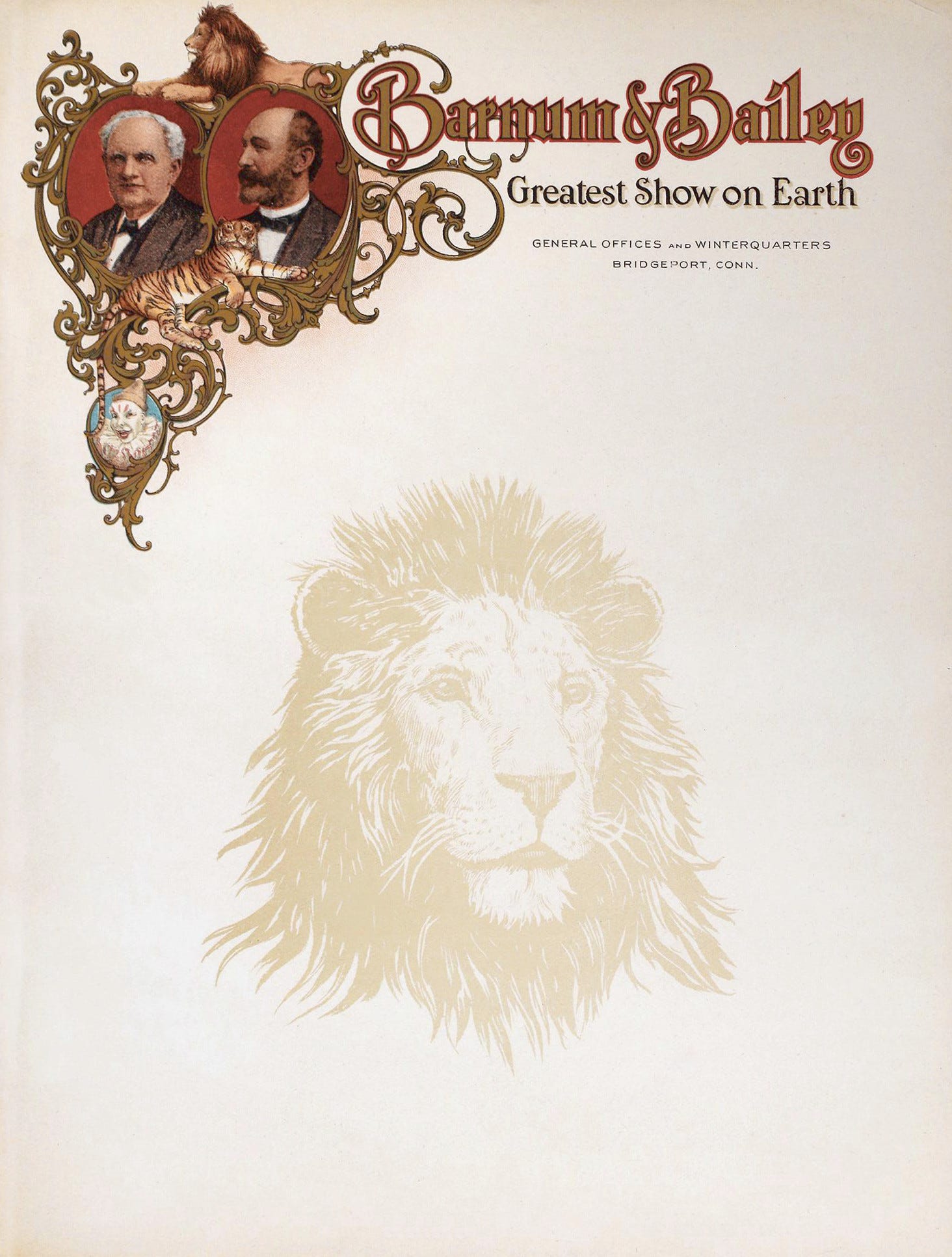
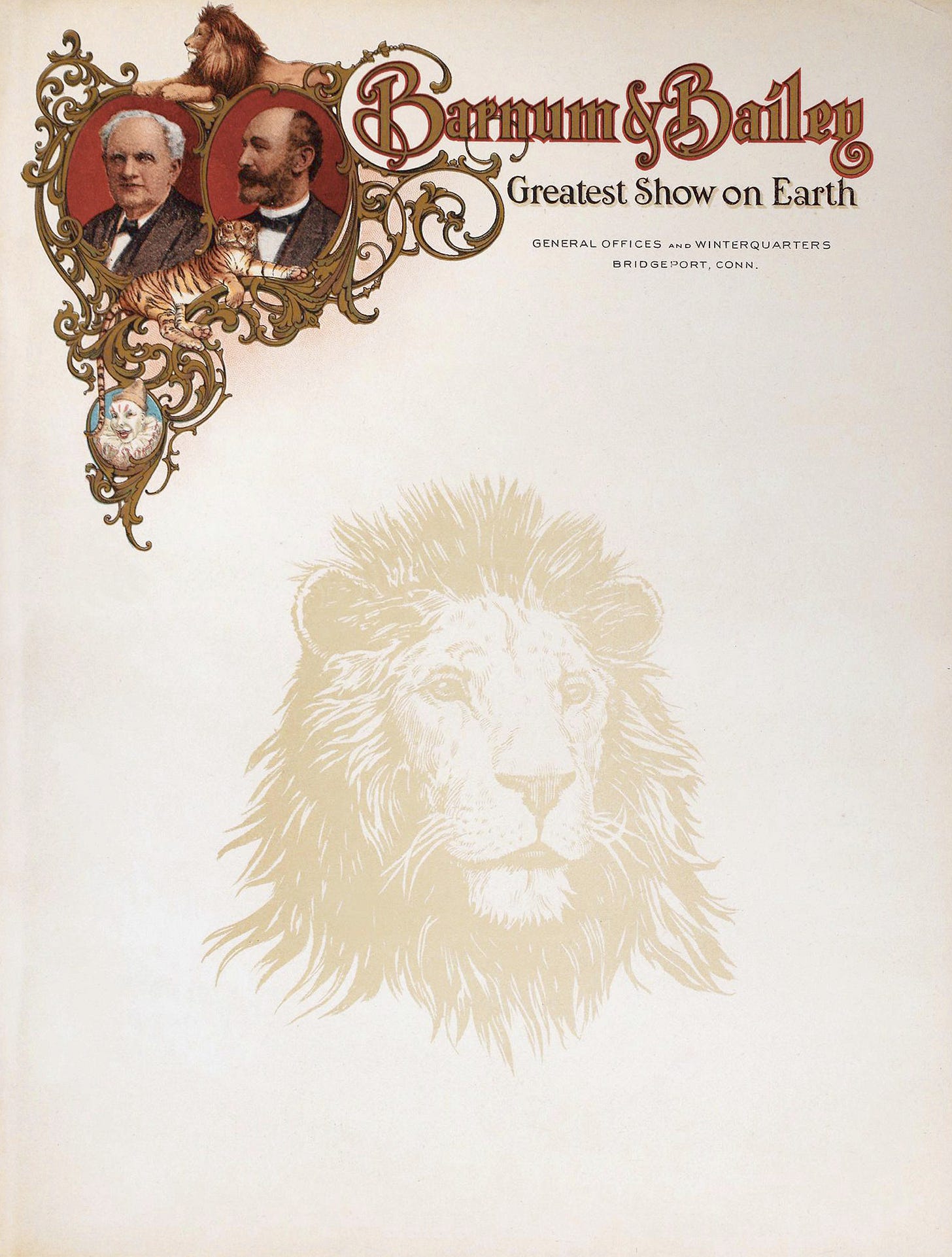
Beautiful use of color for those days. I know that posters used bright colors, but it seems the letterheads were a bit more muted. Was it the expense for something that small?